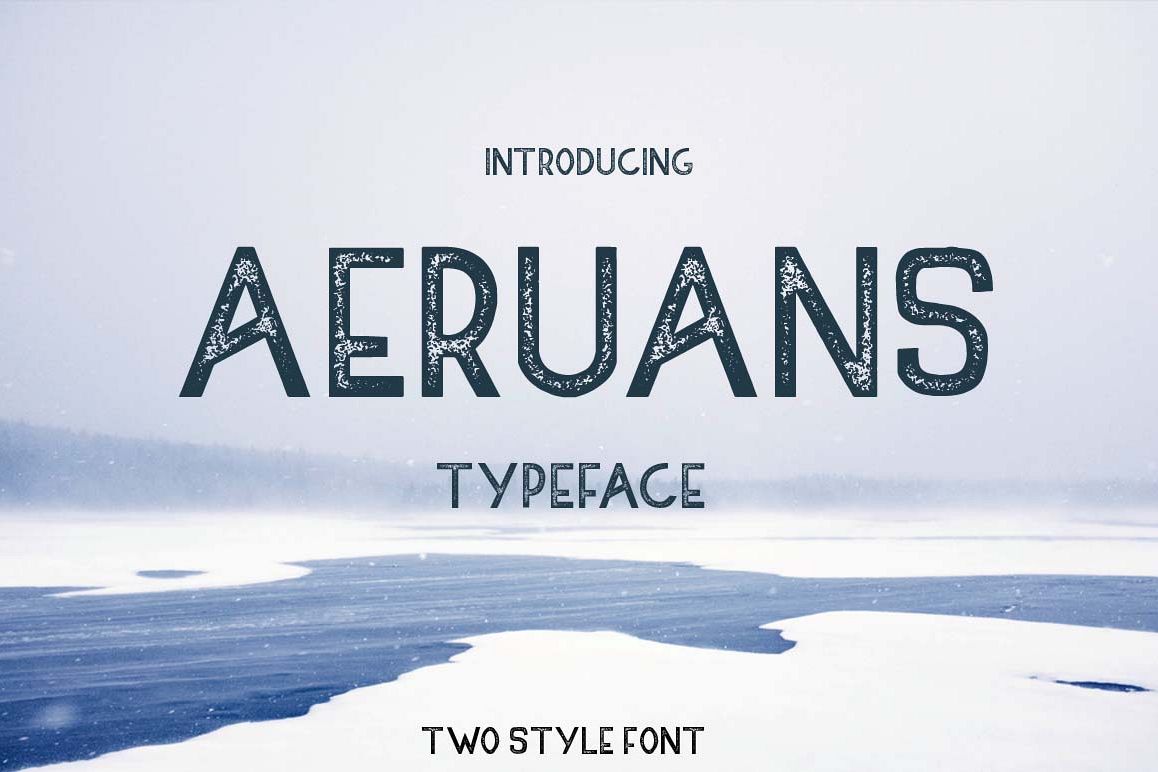
AERUANSis a vintage style font typeface. Perfect for vintage logo designs, headers and small amounts of text. It contains an uppercase all alphabet with numbers and symbols. .otf file included.
AERUANS comes with 26 uppercase letters, numerals, and 12 punctuation characters. clean and rough style.